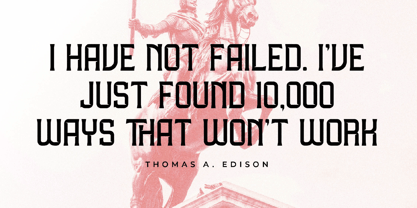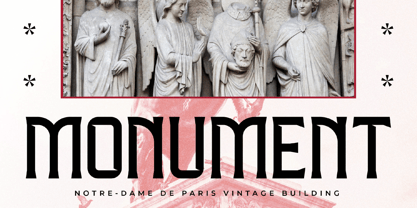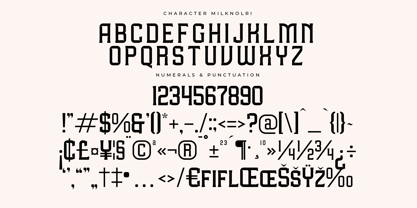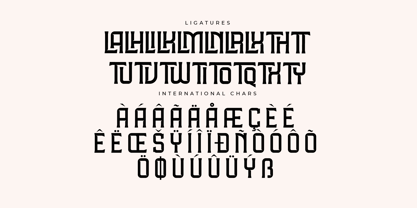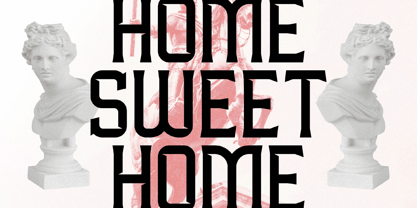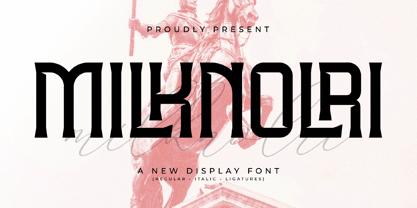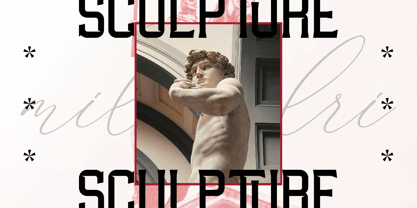
Milknolri
by Letterena Studios
The Milknolri Font Family was designed by Heru Utama Putra and published by Letterena Studios. Milknolri contains 2 styles and family package options. More about this family
Proudly present Milknolri Typeface.
A serif modern and classic typeface that has its own unique style & modern look.
This typeface is perfect for an elegant & luxury logo, book or movie title design, fashion brand, magazine, clothes, lettering, quotes, and so much more.